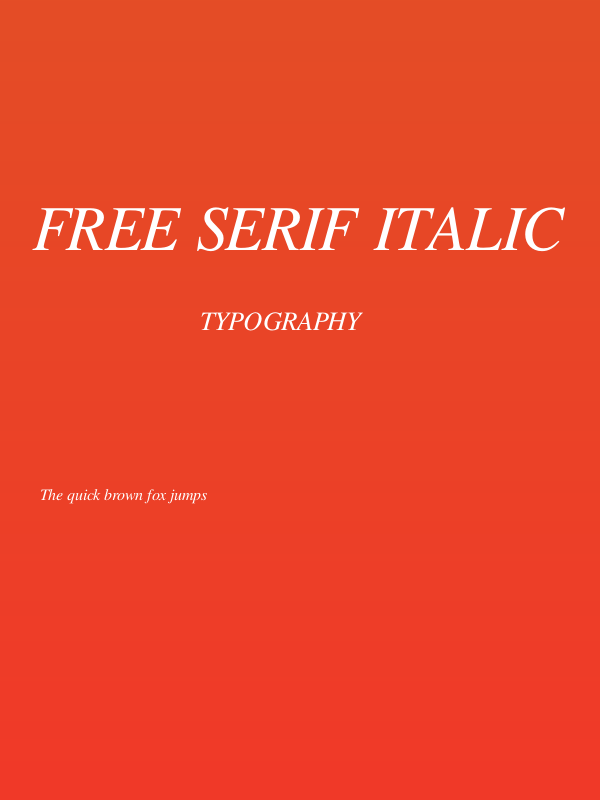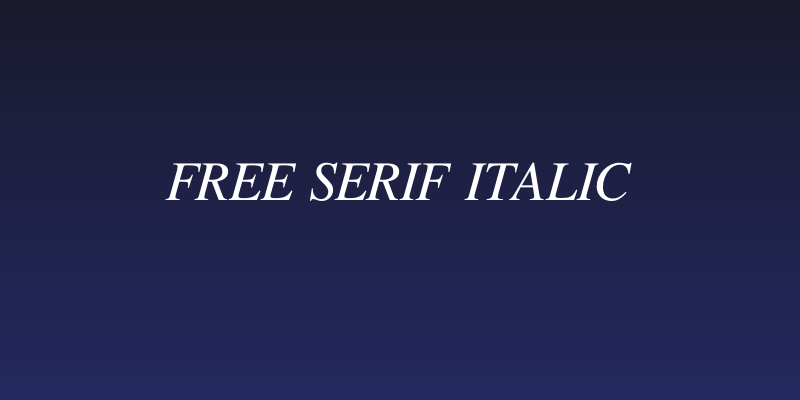
Free Serif Italic Font
Free Serif Italic Description
This font features a classic serif style with elegant italicization, providing a sophisticated and timeless appearance. The letters are gracefully slanted, enhancing the traditional serif elements with a modern twist. The uppercase characters are bold and commanding, while the lowercase letters maintain a fluid and connected form. Numerals are clear and distinct, ensuring readability. Special characters are well-integrated, maintaining the overall aesthetic. The font's design is suitable for conveying elegance and professionalism, making it ideal for formal documents and creative projects.
| Proposed Projects | Ideal for use in formal invitations, editorial layouts, book covers, and branding materials that require a touch of elegance. |